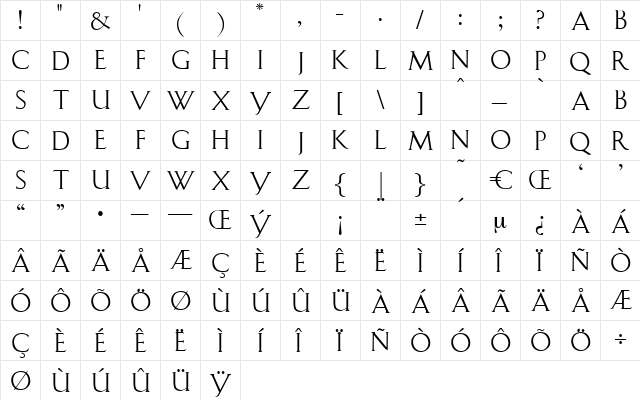
LaurinText Regular
Design Context for LaurinText Typeface
LaurinText is a composed and adaptable typeface that performs quietly and consistently across a wide range of design contexts.